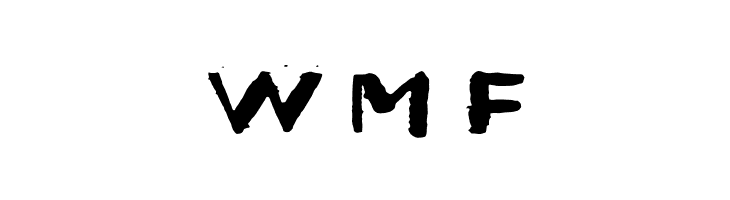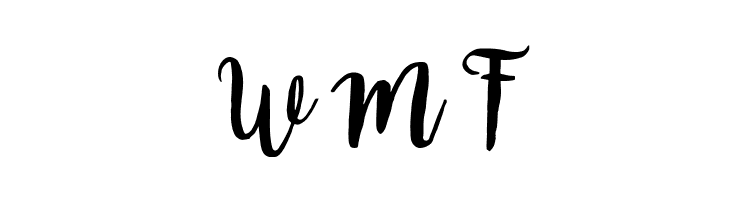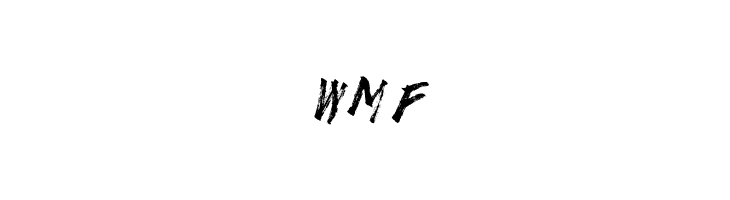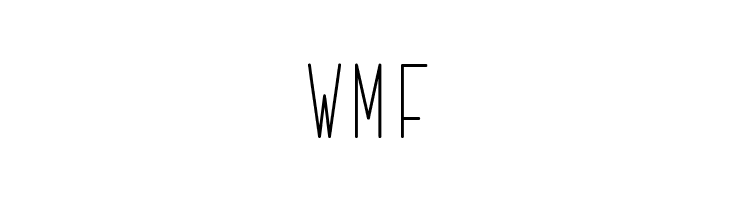
A modern, geometric font with clean lines and rounded edges.
A modern, rounded font with geometric structure and uniform stroke width.
A bold, brush script font with a textured, hand-painted appearance.
A casual, handwritten font with elongated, slightly slanted characters.
A playful, bold handwritten font with an organic feel.
A decorative font with vine-like embellishments and organic flourishes.
A bold, pixelated font with a geometric and modern style.
A bold, geometric font with angular shapes and high contrast.
A decorative font with intricate glyph-like embellishments and a mystical aesthetic.
A decorative font with intricate, symbolic designs within each character.
An ornate and decorative font with tribal-like embellishments.
A decorative font with intricate geometric patterns and symbols within each character.
A playful, tall, and narrow font with a whimsical touch.
A playful, narrow font with consistent stroke width and a whimsical style.
A bold, playful font with rounded edges and a retro pop culture vibe.
A bold, modern serif font with elegant curves and strong strokes.
A bold, 3D font with strong outlines and shadow effects, ideal for impactful designs.
A bold, geometric font with sharp angles and modern design.
A bold, geometric font with Art Deco influences, ideal for dramatic and vintage designs.
A bold, brush-style font with dynamic, hand-drawn characters.
A modern, handwritten script font with a flowing, artistic style.
A modern, cursive font with a handwritten, elegant style.
A lively, handwritten font with a fluid and expressive style.
A whimsical, decorative font with elongated serifs and a playful style.
A bold, geometric font with block-like characters and minimal contrast.
A bold, handwritten-style font with dynamic, slanted characters.
A bold, dynamic handwritten font with a modern flair.
A bold, brush-style font with high contrast and dynamic strokes.
A bold, hand-carved font with a rustic, woodcut appearance.
A bold, woodcut-style font with a handcrafted, textured appearance.
A modern, elegant font with balanced structure and high readability.
A bold, modern font with strong, decorative elements.
A bold, modern font with clean lines and strong presence.